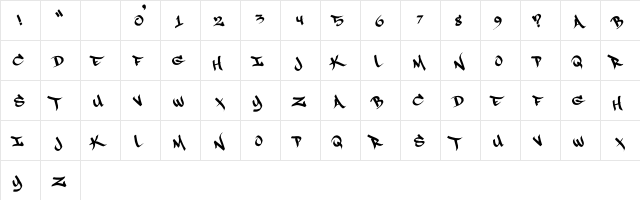
RapScript_Free Regular
| Foundry | Matthew Napolitano / Highground Industries |
| Designer | Matthew Napolitano / Highground Industries |
Design Context for RapScript_Free Typeface
RapScript_Free brings a calligraphic fluidity to the page — its connecting strokes and expressive curves give it an unmistakably human quality.
Font Pairing: Combine RapScript_Free with a simple geometric sans for maximum contrast — the tension between flowing curves and clean structure is a classic typographic pairing.
Pro Tip: Pair RapScript_Free with a clean sans-serif for supporting text. The contrast between fluid script and geometric structure creates an elegant typographic hierarchy.